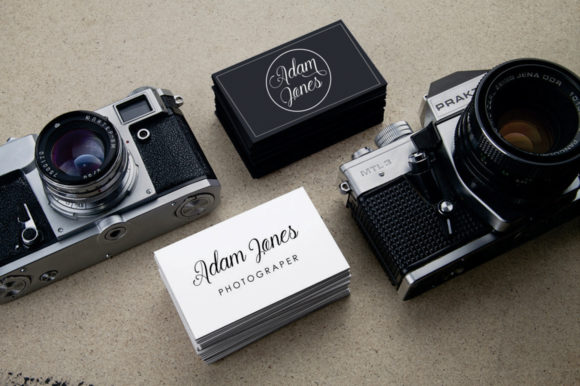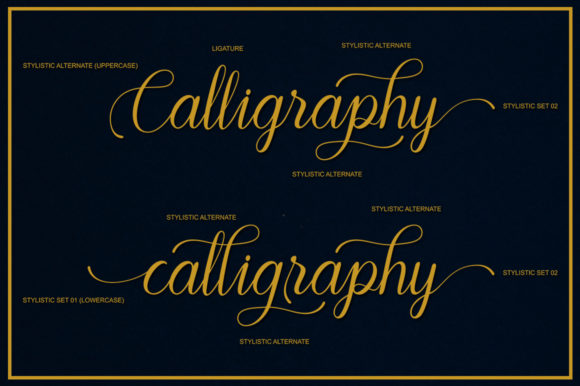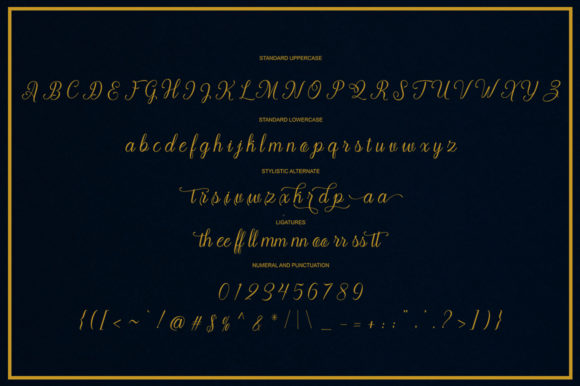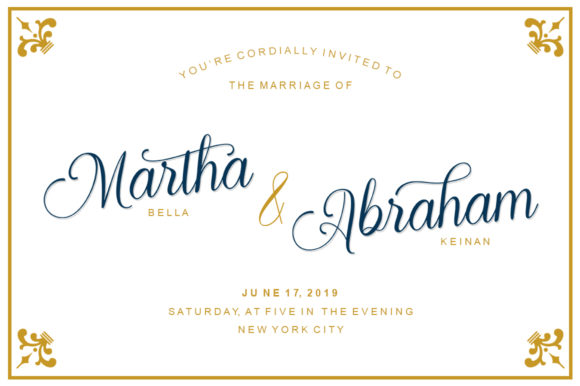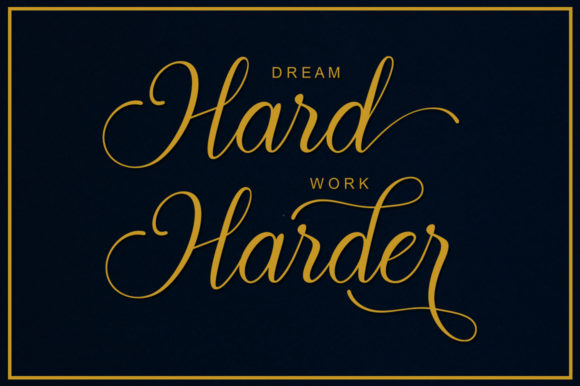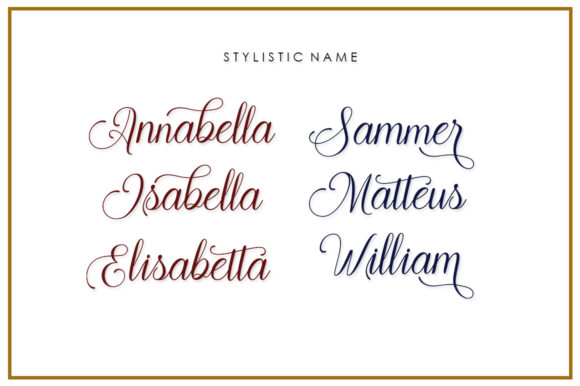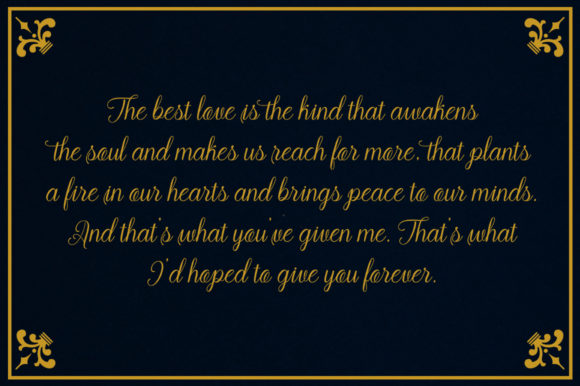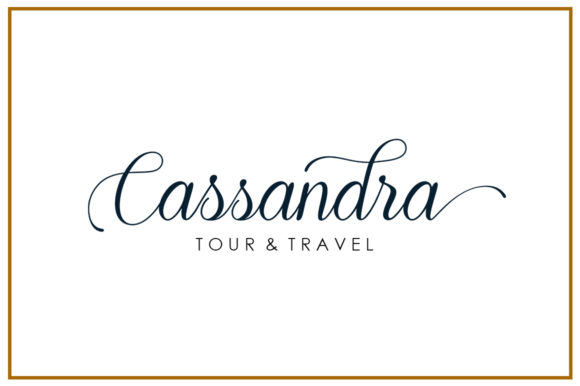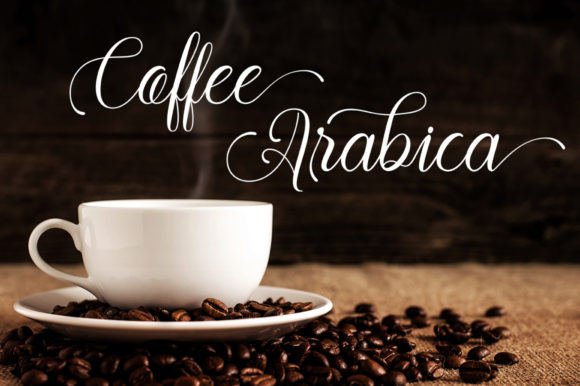
HomeScript FontsArrthur Font Script Fonts Arrthur Font FacebookXPinterestWhatsApp Arrthur Font Poster 2 Arrthur Font Poster 3 Arrthur Font Poster 4 Arrthur Font Poster 5 Arrthur Font Poster 6 Arrthur Font Poster 7 Arrthur Font Poster 8 Arrthur Font Poster 9 Arrthur Font Poster 10 About Arrthur Font Arrthur is a delicate and stunning script with a classic look. DOWNLOAD ON CREATIVE FABRICAThis font is sold and delivered by Creative Fabrica. Font Canyon may earn a commission if you buy through this link. People also explored Stayhome Font Hello Morning Font Tumbler Font The Ocean Font Senittahna Font Lauma Black Font Bull Grunge Font Madelline Font Dark Half BTN 288 0 TagsArrthur Font Previous articleBeefy Soup FontNext articleMaines Font LEAVE A REPLY Cancel reply Comment: Please enter your comment! Name:* Please enter your name here Email:* You have entered an incorrect email address! Please enter your email address here Website: Save my name, email, and website in this browser for the next time I comment. Personal Use Free Nouradilla Script Free Version Personal Use Free Read more about this font Yumail Personal Use Free Read more about this font Konexio Personal Use Free Read more about this font Urkelian Personal Use Free Read more about this font BLOG 5 Fonts That Will Dominate Design Trends in 2026 5 Fonts for 2026 That Will Dominate Design Trends Typography plays a critical role in visual communication, and as we look ahead to 2026, it’s... Fonts That Capture the Spirit of New York City The 10 Best Handwriting Fonts to Add Personality to Your Designs Using Fonts in Digital Marketing: Tips to Strengthen Your Brand Identity